It's Halloween season, and whether you're working on a big commercial project or just a poster for a local event, you want your design to convey a sense of suspense, fear, unease or outright horror. And the right font can make all the difference.
However, you don't necessarily want to license an expensive typeface for a one-off occasion. But you don't want to taint your design with a cheap and nasty free font either. Fortunately, there are several free Google Fonts that are perfectly suited for Halloween.
So take your audience on a spectral journey through our selection of horror-themed Google Fonts. From eerily extended serifs to curiously curved sans-serifs, these fonts will ensure your projects are hauntingly memorable!
1. Creepster
With a dripping, melting aesthetic reminiscent of horror movie posters from the 1950s and '60s, Creepster is purpose-made to give your designs an instantly spooky vibe. That makes it perfect for everything from Halloween invitations and party posters to website headers and social media graphics. Developed in 2011 by Sideshow, an offshoot boutique type foundry of the Font Diner retro display font foundry, this font supports 41 languages. It was designed by Stuart Sandler and David Cohe.
Why it's spooky: Ghastly, gory and gruesomely gleeful, this font will bring an eerie, unsettling vibe to your designs. It is ideal for creating Halloween materials of all kinds.
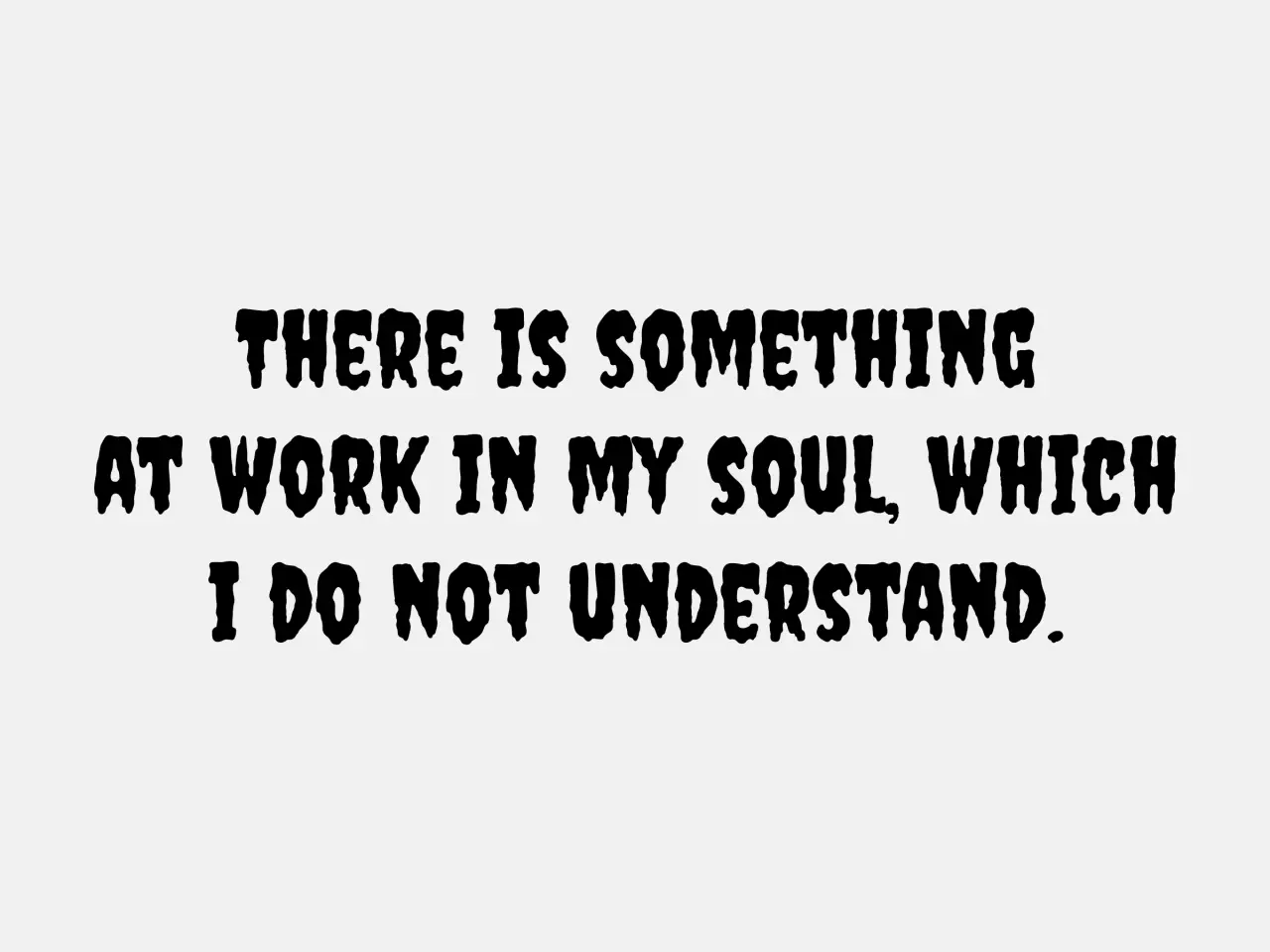
Creepster via Google Fonts. Quote from Mary Shelley, Frankenstein
2. Nosifer
Here's something a little different: a bold and unsettling font with sharp, aggressive edges and blood-drip embellishments. The typeface was designed by the late great Vernon Adams, who said: "Nobody knows where Nosifer comes from. It emanates a dark stench as it drips from the Internet." Available in OTF and TTF formats, Nosifer offers a great way to evoke a truly sinister atmosphere within your Halloween designs.
Why it's spooky: The unusual combination of rigid geometry and bloody drips calls forth images of classic vampire tales and horror narratives, intertwining an assertive presence with a subtext of horror and brutality.
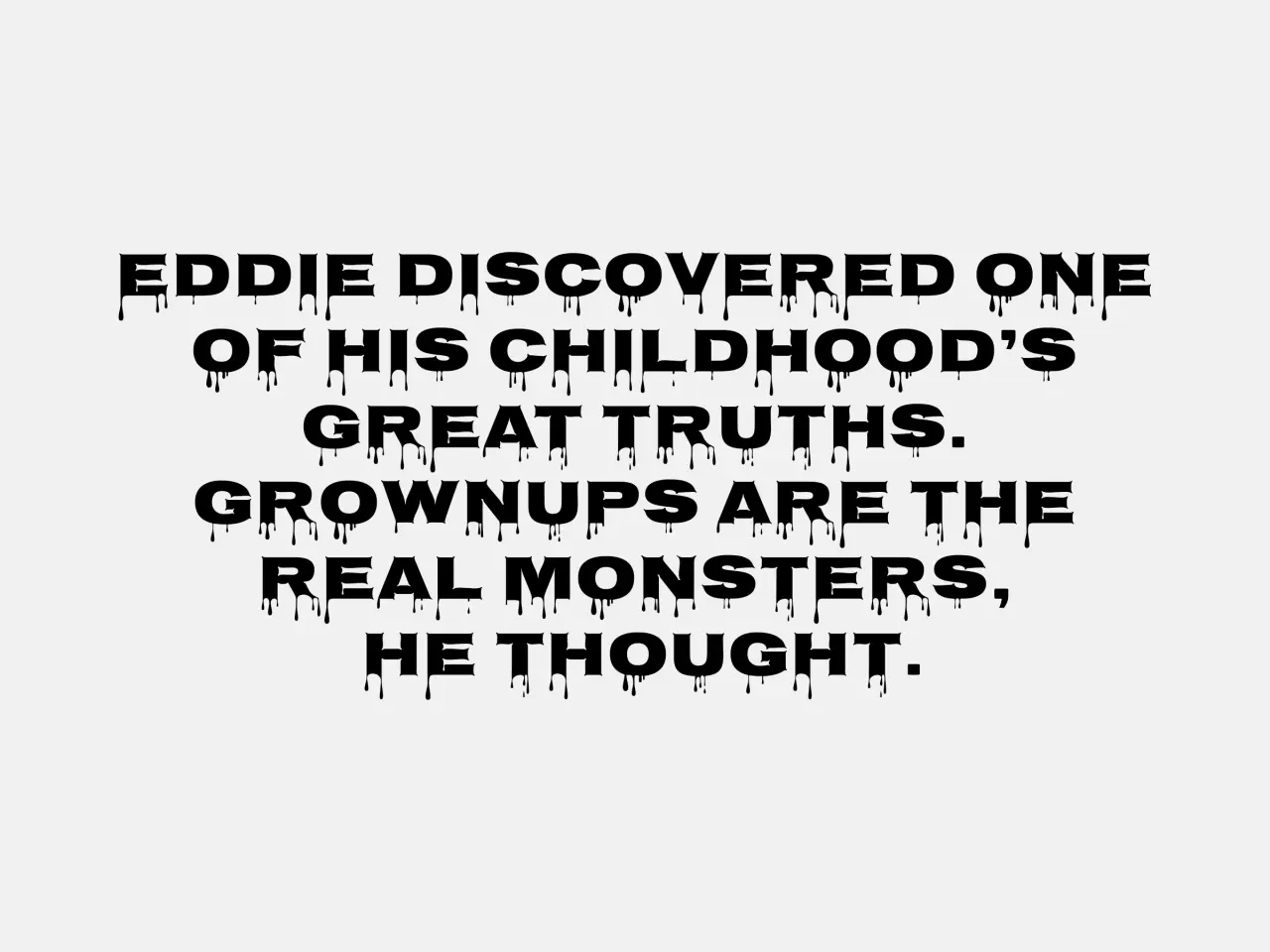
Nosifer via Google Fonts. Quote from Stephen King's It
3. Butcherman
If you're working on anything related to zombies, Butcherman is a great choice. This disturbingly top-heavy horror font was also designed by Vernon Adams, who once described it as "a zombified display font, hacked and chopped and left for dead, yet still crawling". With a rusted, decayed aesthetic that's unlike anything we've seen elsewhere, this is well worth considering for your Halloween designs.
Why it's spooky: There's something very skull-like about the shape of this font. And this eerier silhouette, coupled with its sharp, jagged edges, creates a visual synonymous with decay and a post-apocalyptic or horror movie setting.
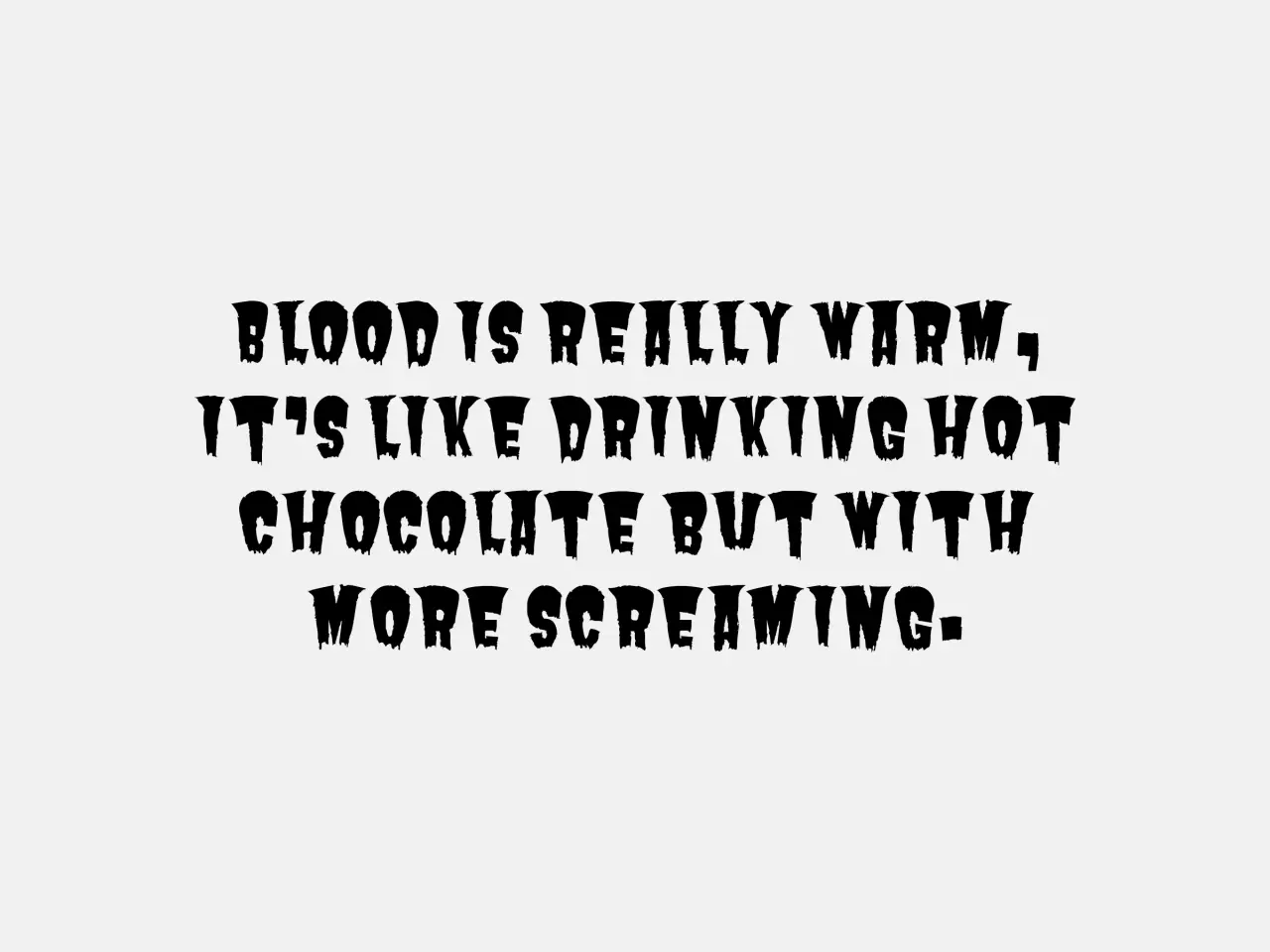
Butcherman via Google Fonts. Quote by Ryan Mecum, Zombie Haiku: Good Poetry for Your…Brains
4. Eater
Eater is a friendlier-looking font than the ones we've featured so far: more reminiscent of a scary children's book than an R-rated slasher movie. A regal yet decayed font with sharp serifs and a dripping, corrosive aesthetic, it's perfect for creating elegantly eerie designs for your Halloween creations. Makers Typomondo describe it as "a display font infected by the darkest of a rare disease that slowly spreads at night while the web font user sleeps".
Why it's spooky: The juxtaposition of Eater's curvy, serif form with its jagged barbs makes for an unsettling ambience – but not one that's too scary for kids.
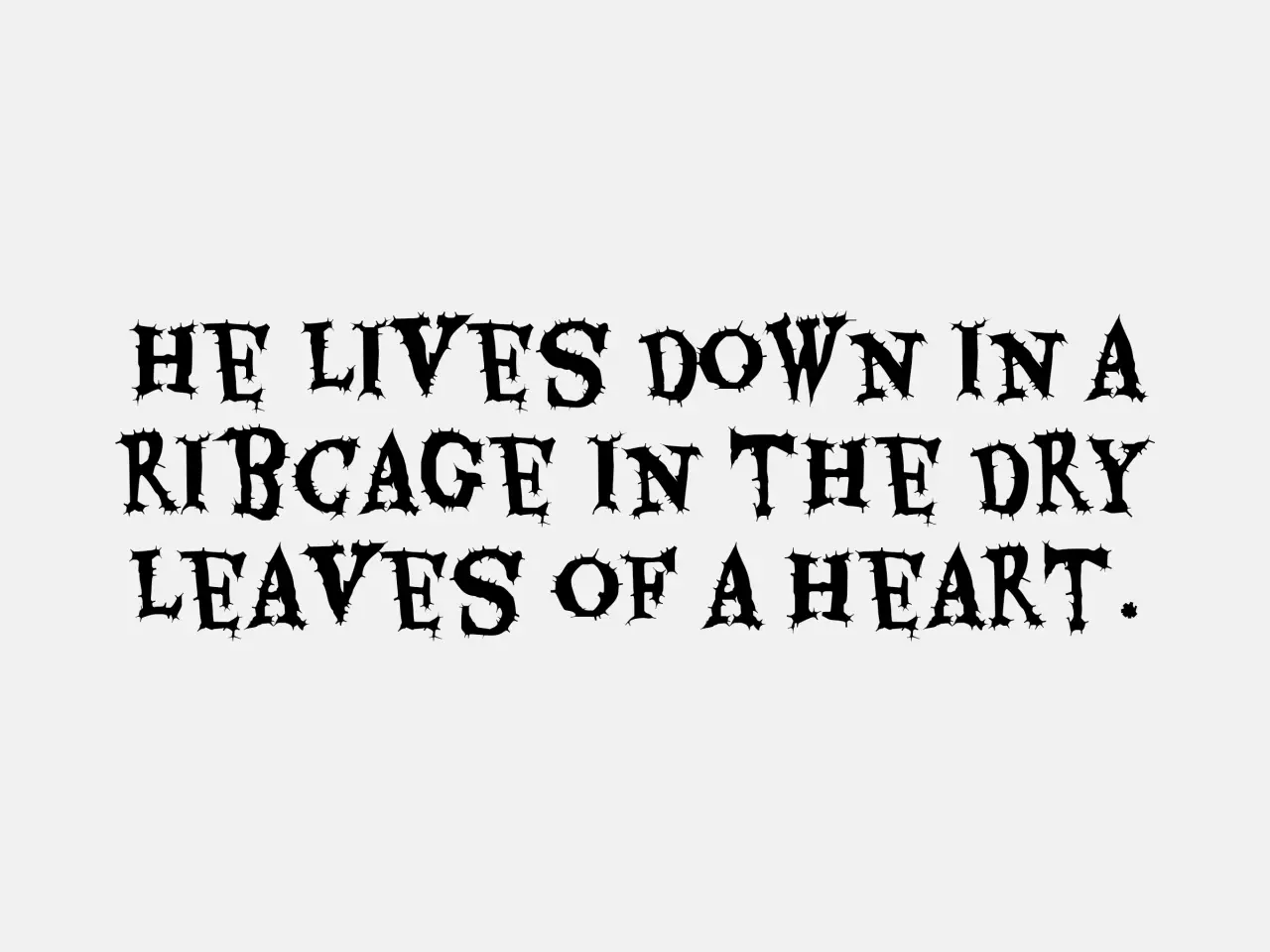
Eater via Google Fonts. Quote by Thomas Harris, The Silence of the Lambs
5. Frijole
Frijole is a chunky display font that on the fact of it is more playful than horrific. Yet there remains an underlying sense of the disturbed within its bold, blocky characters, making for a lighter, whimsical take on spooky. It was designed by Sideshow, who described it as "bold, spicy and satisfying".
Why it's spooky: Despite its seemingly cartoon-line nature, Frijole can convey a quirky, unconventional sense of unease when paired with the right kind of spooky illustration. Indeed, in the right design, it could become even more unnerving than a purposely horror-like font.
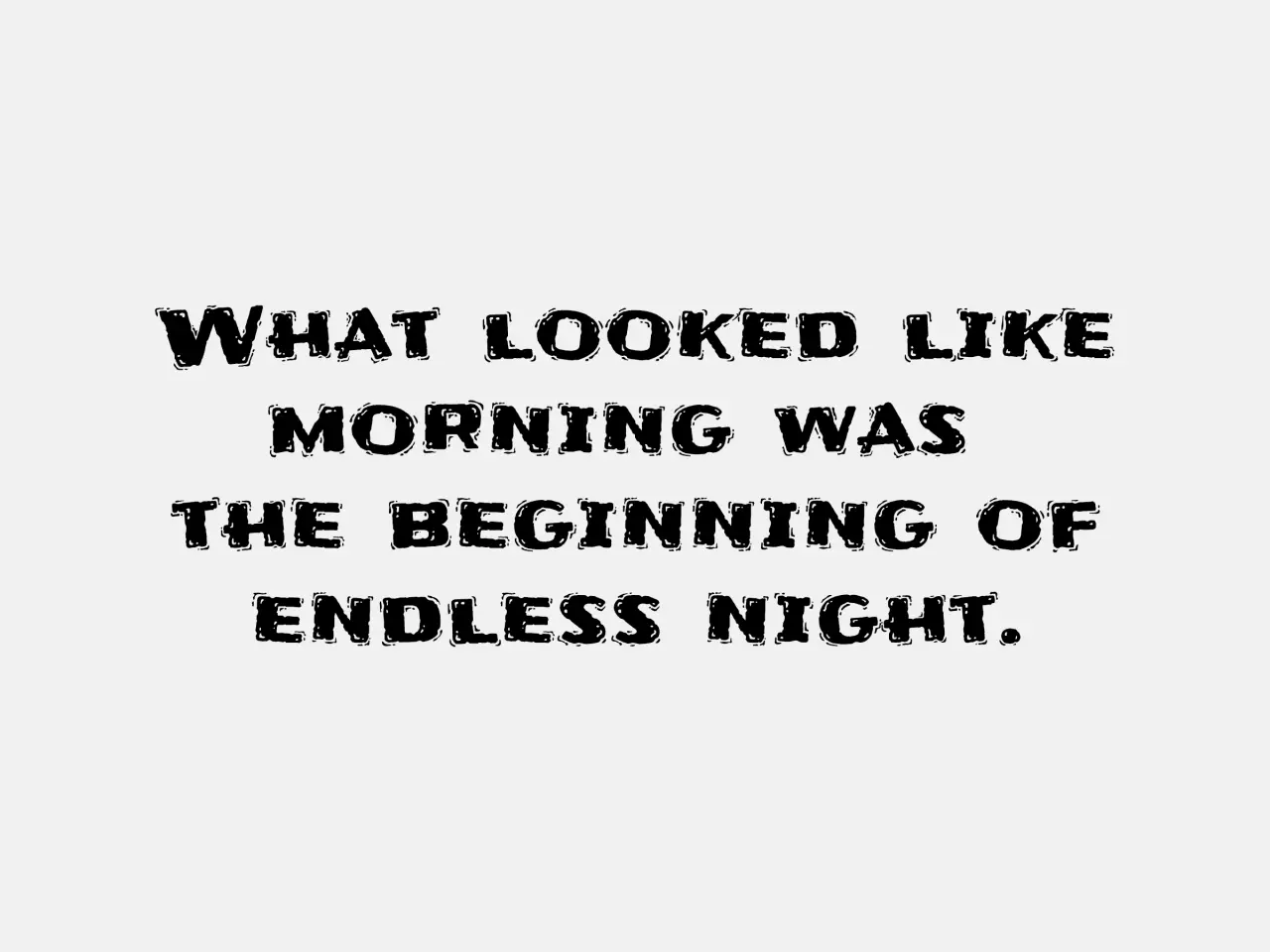
Frijole via Google Fonts. Quote by William Peter Blatty, The Exorcist
6. Metal Mania
Heavy metal bands from the 1980s are commonly associated with horror-themed album covers and occult-themed song lyrics, not to mention (largely imagined) accounts of Satanic backwards messages. So, while Metal Mania is more about nostalgia for rock-and-roll rebellion than Halloween as such, these elaborate, other-worldly serif characters could certainly serve the purpose of a Halloween font within an appropriate design.
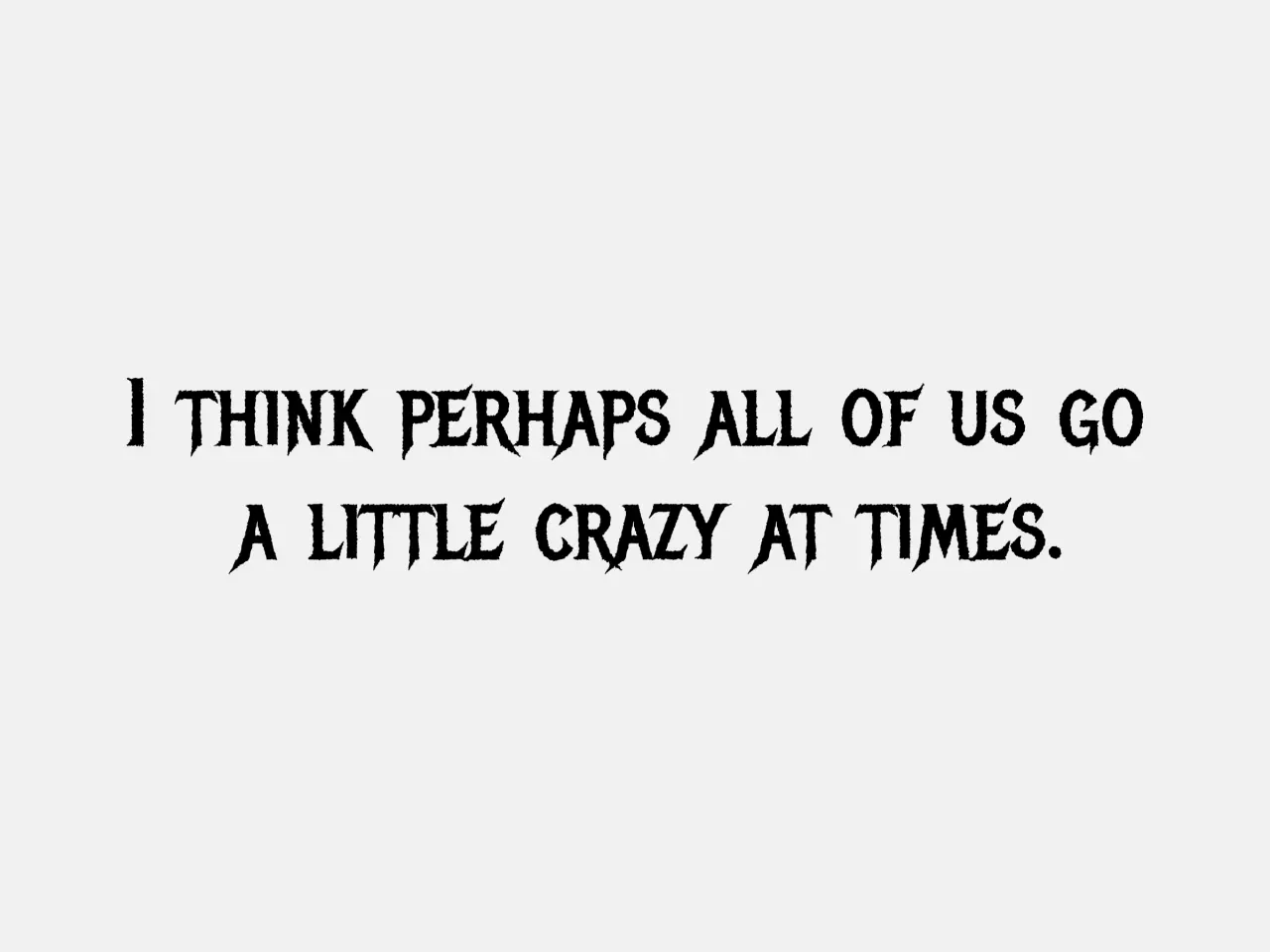
Metal Mania via Google Fonts. Quote by Robert Bloch, Psycho